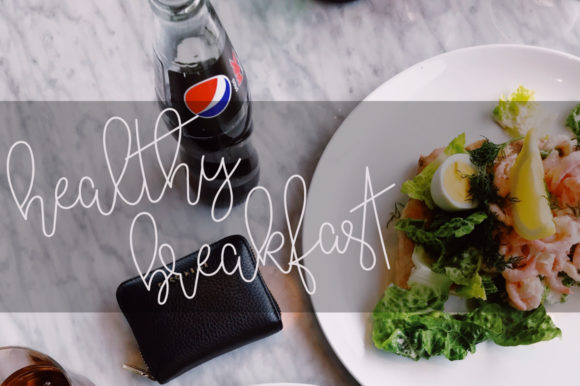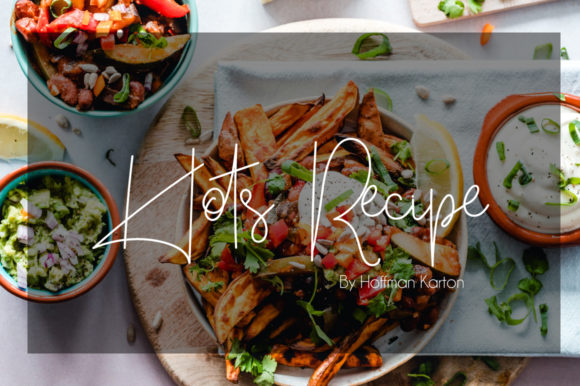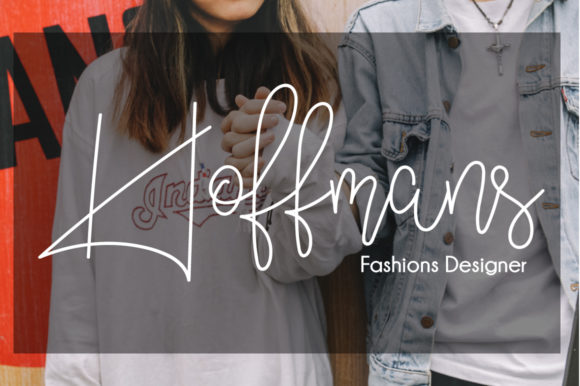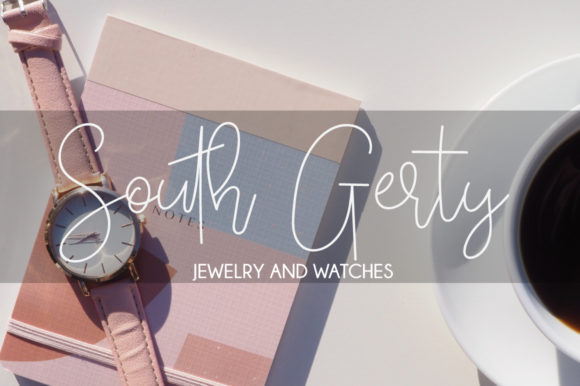
Blastinae Font
About Blastinae Font
Blastinae is a fun and authentic handwritten font with a playful feel. It will inspire any new creative project with its dynamic charm.